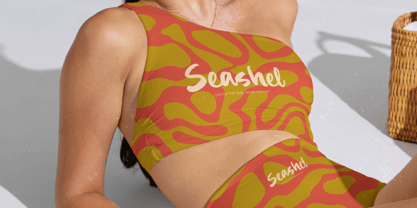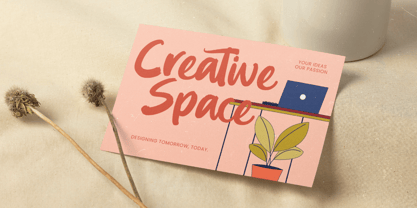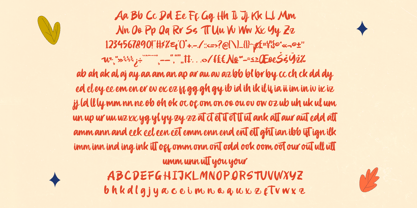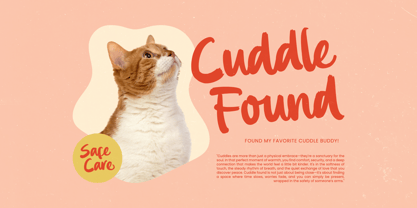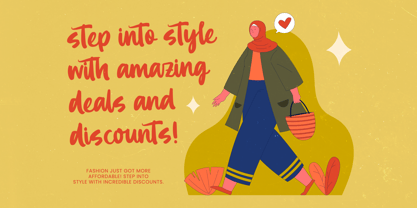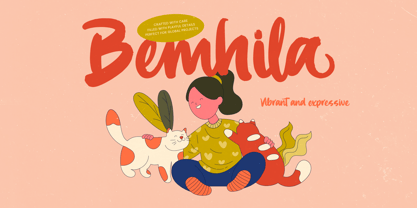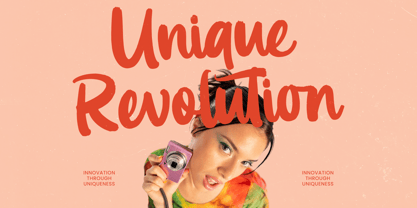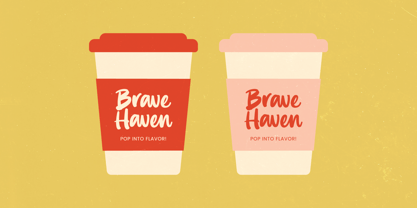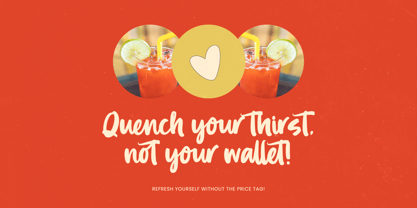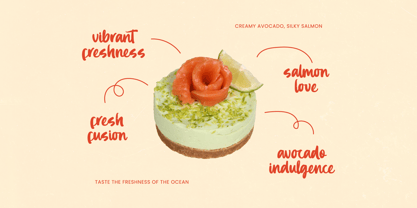
Bemhila
The Bemhila Font Family was designed by Heru Utama Putra and published by Letterena Studios. Bemhila contains 2 styles and family package options. More about this family
Bemila is a bold brush script font designed to bring energy, warmth, and personality into your creative projects. With its thick, hand-painted strokes and natural brush texture, this typeface delivers a confident and playful look that instantly grabs attention.
The letterforms are smooth yet expressive, featuring organic curves and dynamic movement that make every word feel handcrafted. Bemila comes with 39 ligatures, 51 alternates, and multilingual support, giving you the flexibility to create unique typography compositions with ease. Whether you’re designing logos, packaging, posters, social media graphics, or branding materials, this font adds a vibrant and friendly touch.
Perfect for bold headlines and display typography, Bemila balances creativity and readability. Its strong brush style makes it ideal for modern branding, lifestyle themes, children-related designs, merchandise, and eye-catching promotional visuals.